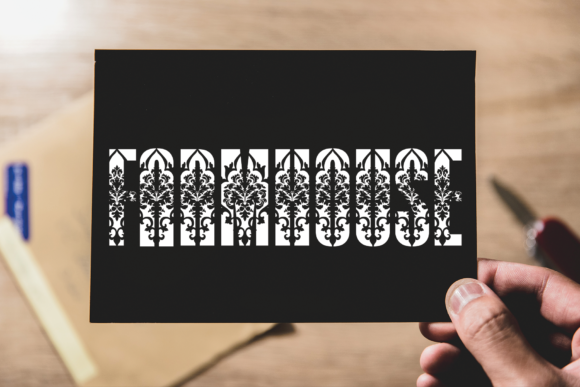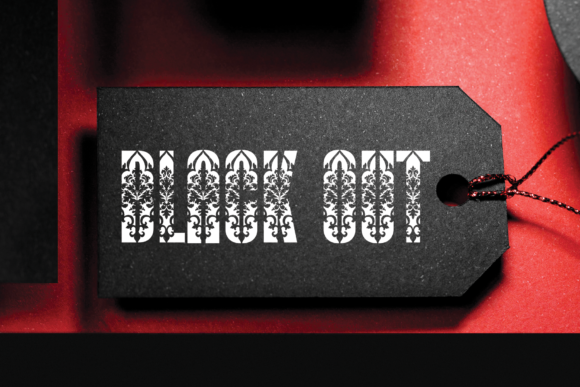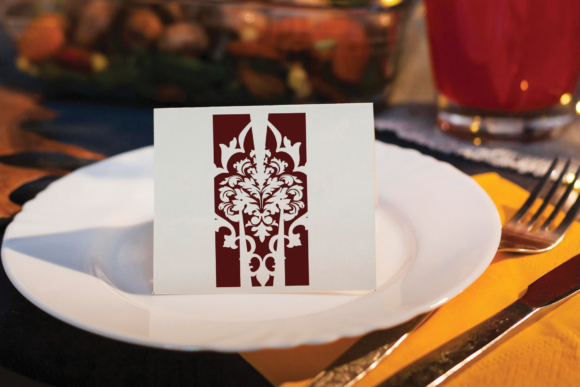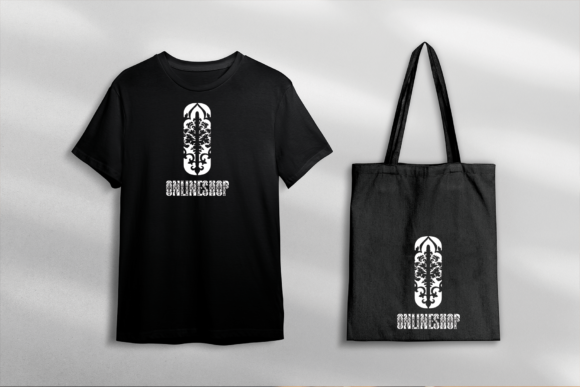
Introducing Decoration Font: Elevate Your Designs with Elegance
Are you a designer or crafter looking for a unique and exquisite font to add a touch of sophistication to your projects? Look no further than Decoration Font, a stunning decorative font perfect for a wide range of applications. From wall displays and wedding invitations to social media post logos and product packaging, Decoration Font is the ideal choice for those seeking to make a lasting impression.
What is Decoration Font?
Decoration Font is a beautifully crafted decorative font designed to add a touch of elegance and refinement to your designs. Its intricate and ornate details make it perfect for projects that require a high level of sophistication, such as wedding invitations, luxury product packaging, and high-end branding.
Uses of Decoration Font
Decoration Font is incredibly versatile and can be used for a wide range of projects, including:
- Wall Displays: Create stunning wall art, quotes, and posters that are sure to grab attention.
- Wedding Invitations: Add a touch of romance and sophistication to your wedding invitations and save-the-date cards.
- Social Media Post Logos: Elevate your social media presence with eye-catching logos and graphics.
- Advertisements: Create effective and visually appealing ads that drive results.
- Product Packaging: Add a touch of luxury to your product packaging and make your brand stand out.
- Product Designs: Create beautiful product designs, such as labels, tags, and packaging inserts.
- Photography: Add a touch of elegance to your photography with custom watermarks and overlays.
- Invitations: Create stunning invitations for parties, events, and special occasions.
- Stationery: Elevate your stationery with beautiful and elegant font styles.
Why Choose Decoration Font?
Decoration Font offers a range of benefits that make it the perfect choice for designers and crafters, including:
- Unique and Exclusive: Decoration Font is a one-of-a-kind font that will set your designs apart from the rest.
- Elegant and Sophisticated: The font’s intricate details and ornate style add a touch of elegance and refinement to your designs.
- Versatile: Decoration Font can be used for a wide range of projects, from digital designs to print materials.
Tips for Using Decoration Font
To get the most out of Decoration Font, here are a few tips to keep in mind:
- Use it Sparingly: Decoration Font is a bold and eye-catching font, so use it sparingly to avoid overwhelming your design.
- Pair it with Other Fonts: Combine Decoration Font with other fonts to create a unique and visually appealing typography.
Decoration Font is a stunning decorative font that is perfect for designers and crafters looking to add a touch of elegance and sophistication to their projects. With its intricate details, ornate style, and versatility, Decoration Font is the ideal choice for a wide range of applications. Whether you’re creating wall displays, wedding invitations, or product packaging, Decoration Font is sure to make your designs stand out.